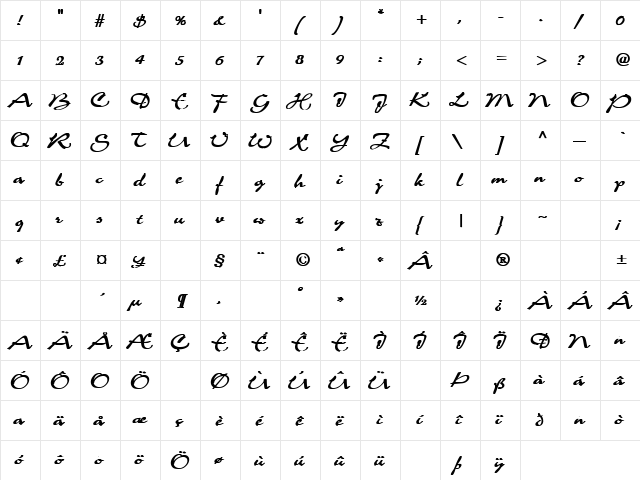
Legal Fees 1 Bold
Design Context for Legal Fees 1 Typeface
Legal Fees 1 is a composed and adaptable typeface that performs quietly and consistently across a wide range of design contexts. The heavy weight commands attention and anchors typographic hierarchies.